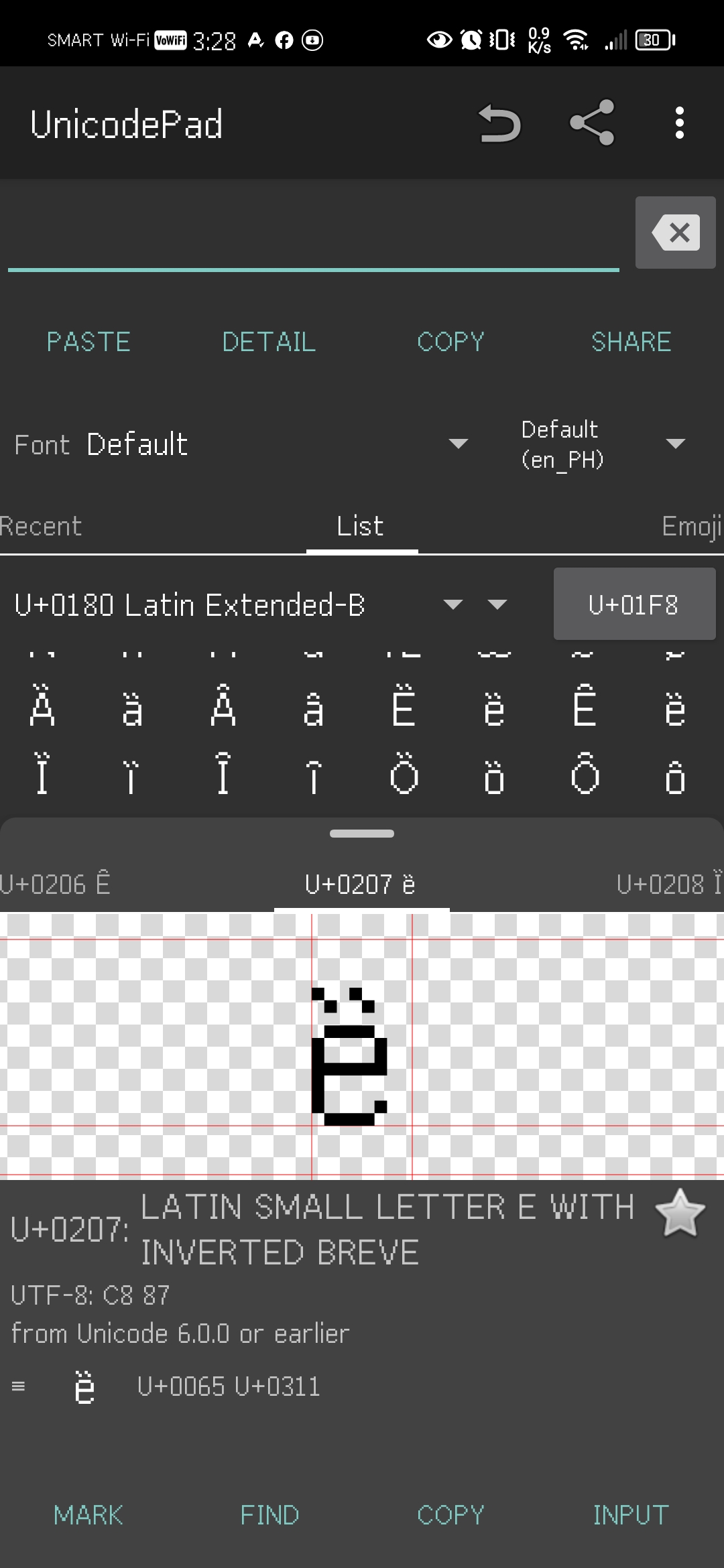
Underrated font
also i found a bug on the font. where are the two diacritics in ḉ?
request: fullwidth latin letters, numbers, and symbols
Request: tangut and
Ideographic Description Characters
can you add U+203F? it is used in the salish language
@ipgreen2024 he probably won’t add tangut because it contains a large number of tangut characters. or he might add tangut, but he probably will include a set of glyphs in that block
Korean won sign actually has only one crossbar in Unicode.
it depends on the font that you use
@ctcg_ the glyph may have one or two crossbars, but the most common form in korea has only one
woah you’re now working on indic scripts!
if possible, can you also add ancient scripts (such as lycian, phoenician, etc.)?
canIPA my beloved <3
request: hangul jamo & hangul compatibility jamo
Add 3,000 more CJK Unified Ideographs! And make sure to split into 6 fonts (Plane 0, Plane1, Plane2, Plane3, PlaneF, Plane10)
oh you moved the hangul jamos into quickhangeul... it’s fine
request: more mathematical alphanumeric symbols
Request: More of CJK Unified Ideographs (the space of 4E00-9FFF)
another mistake found! can you fix this? (for clarification, it was supposed to look like an inverted breve, not double grave)
mistake found at U+1E96: it shows “ḫ” instead of “ẖ”. can you please fix it?
another bug found: U+F61B’s letter width is veeerryyy long
what’s SfLC?
I have one of my conscripts (Innux) at PUA, which is mapped to range U+F400 to U+F47F (in my scheme). My largest Unicode font (normalpixel CTCG) provides full support for this conscript.
Are you relocating this somewhere in plane F?
request: phak-fa-su
More CJK please
+ Innux (placed at range F400-F47F in normalpixel CTCG)
nevermind, please ignore my request. what i meant was you need to add the tag “Phak-fa-su”
are you planning to include shidinn/xdi8?
request: tifinagh
add more ethiopic please
can you move U+F718, U+F719, and U+F71A to U+F753, U+F754 and U+F755 respectively? because there is a bug in the thai block